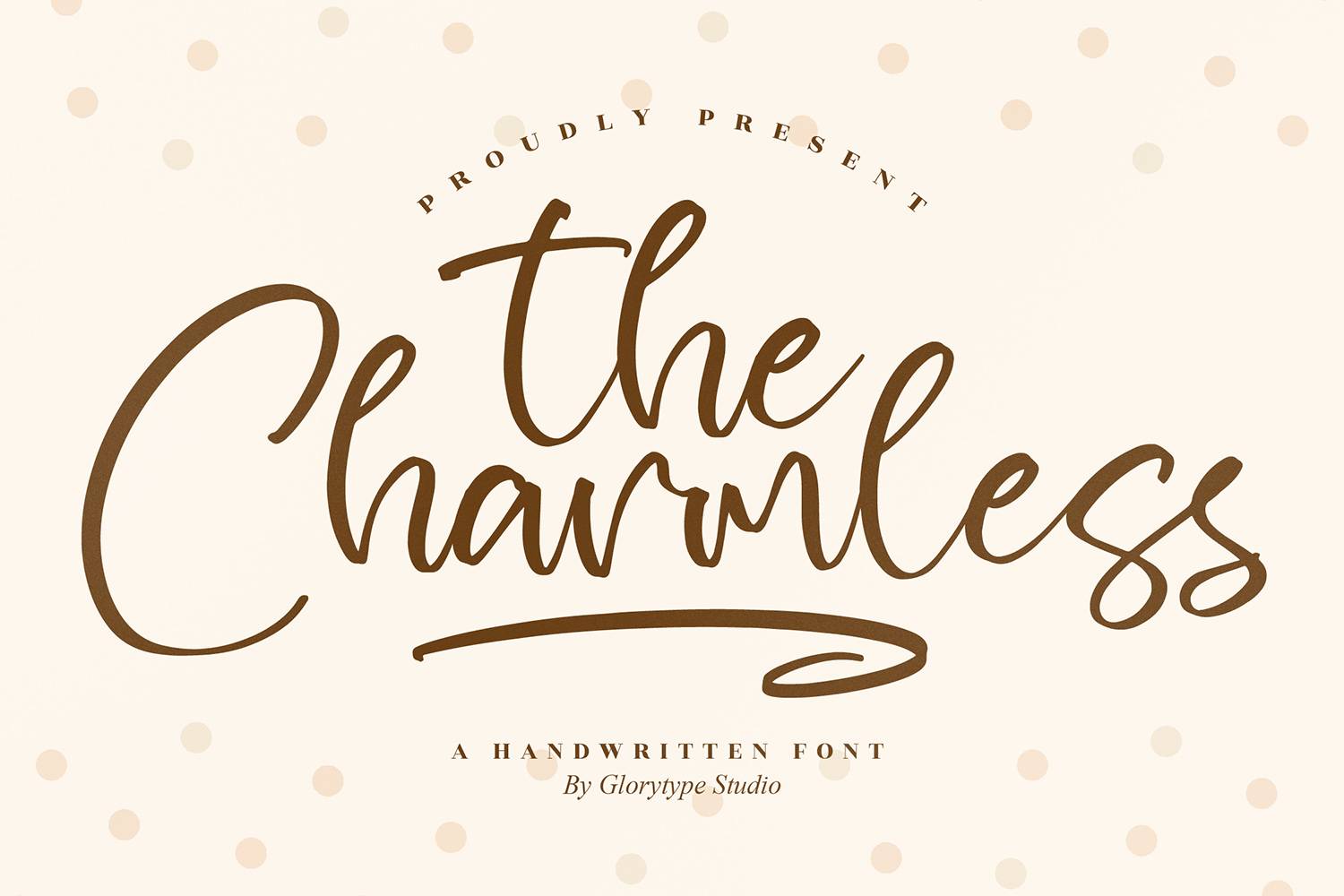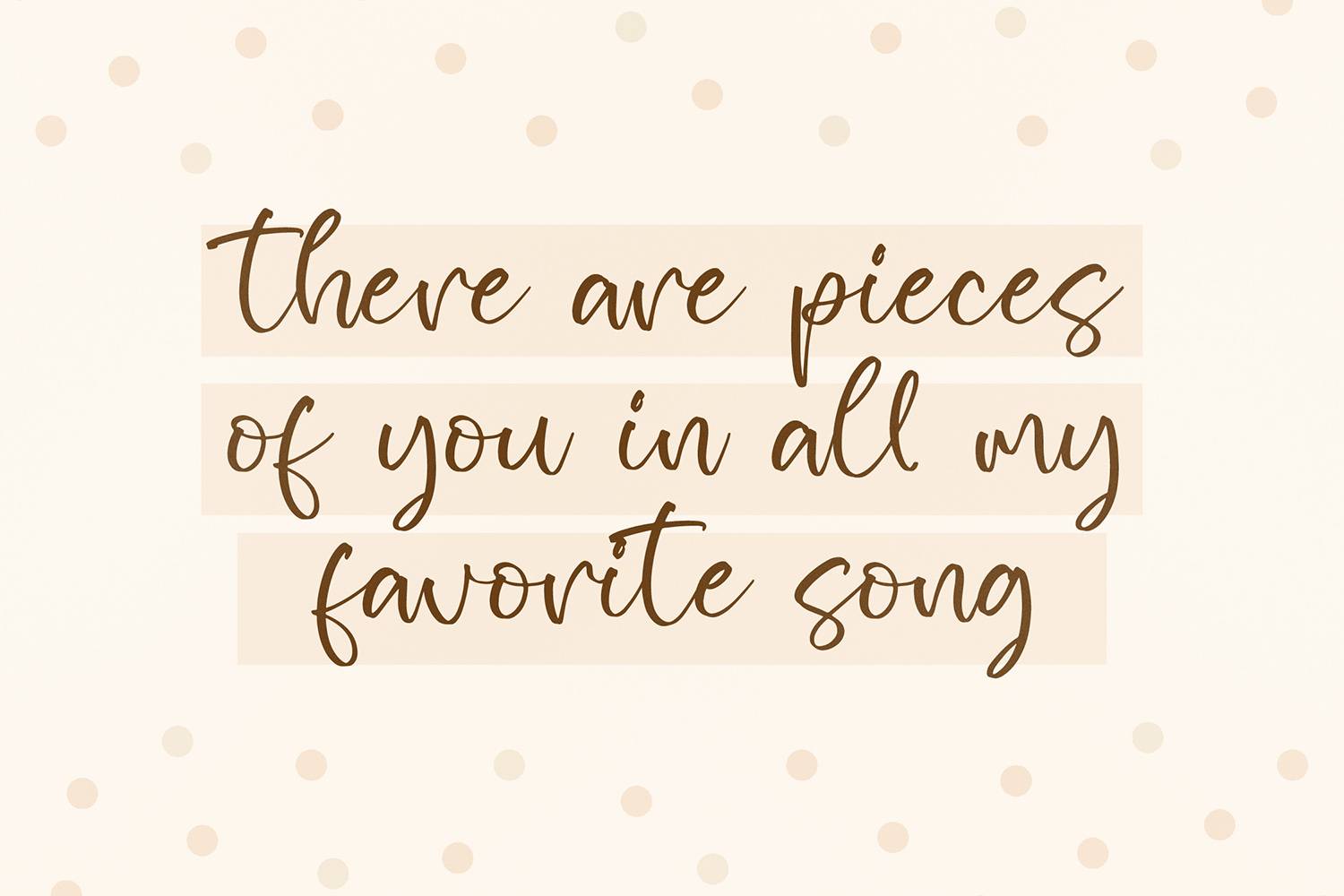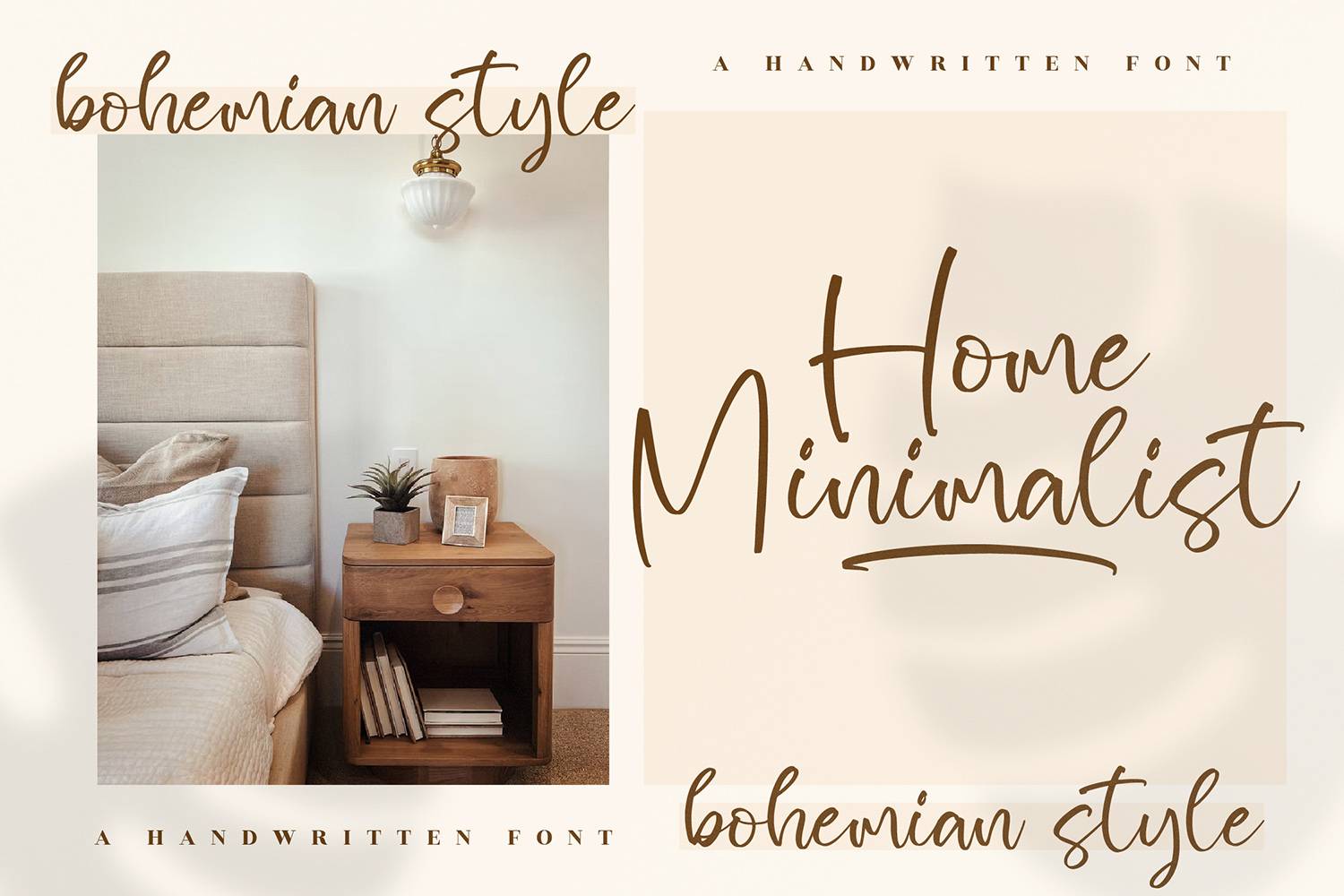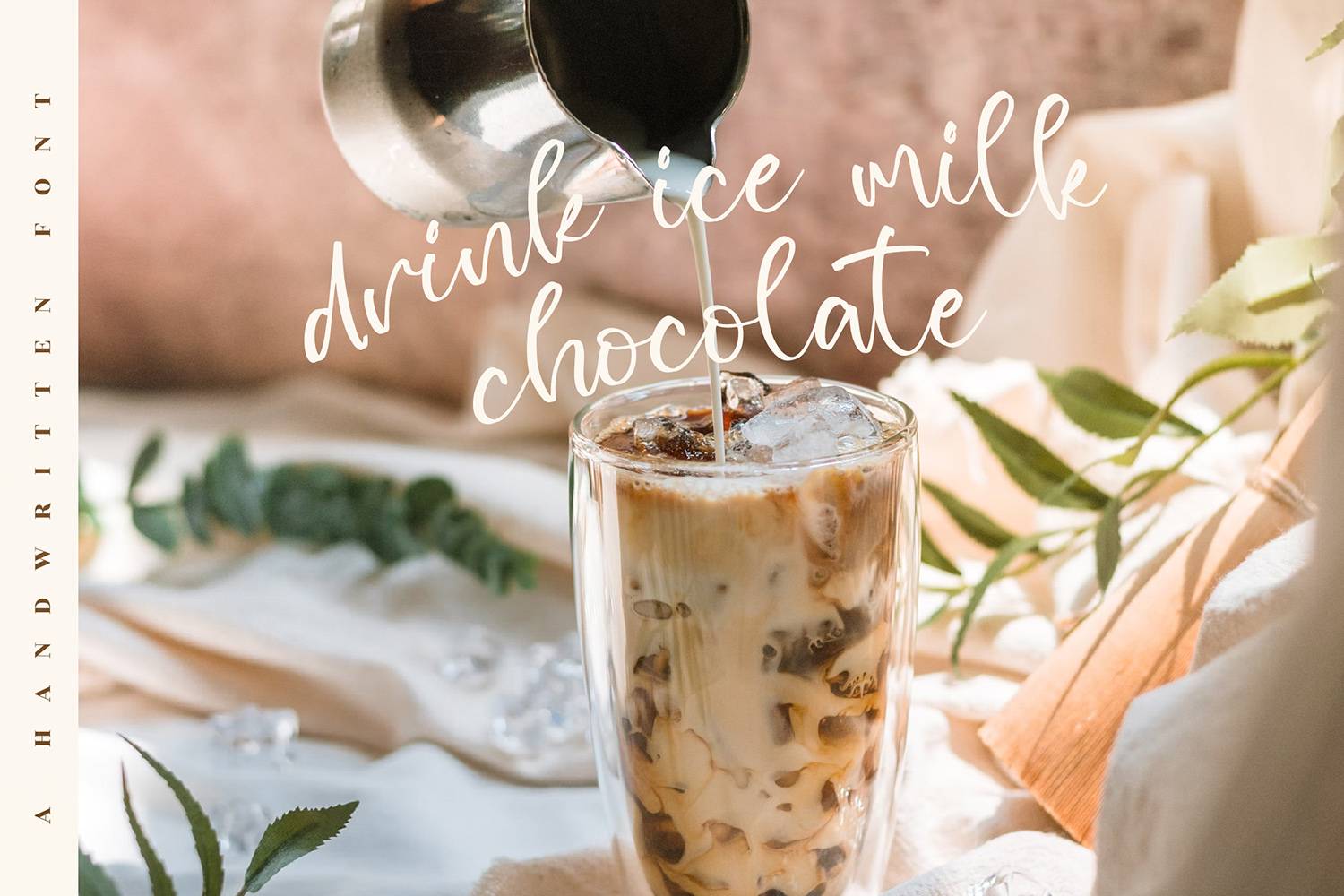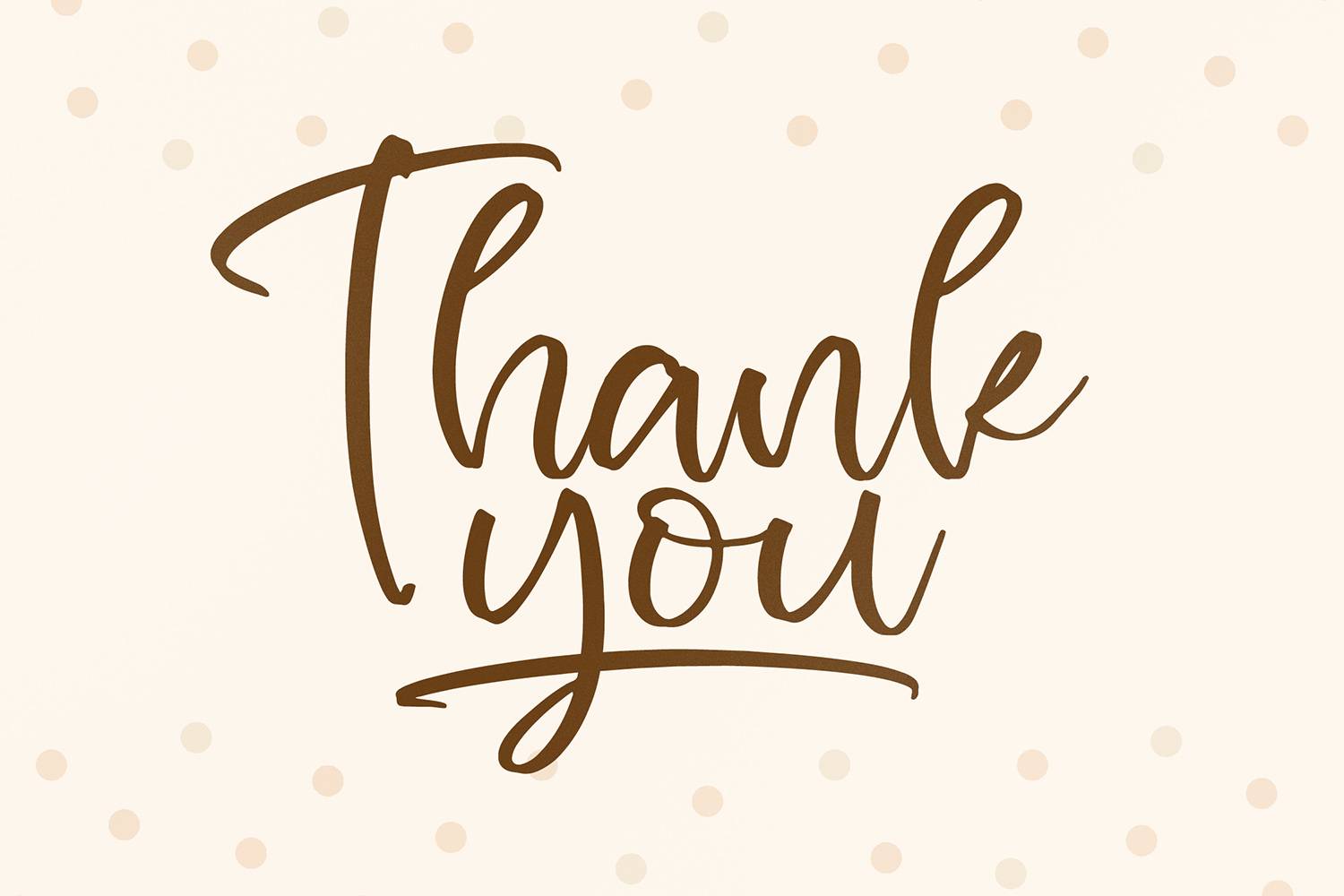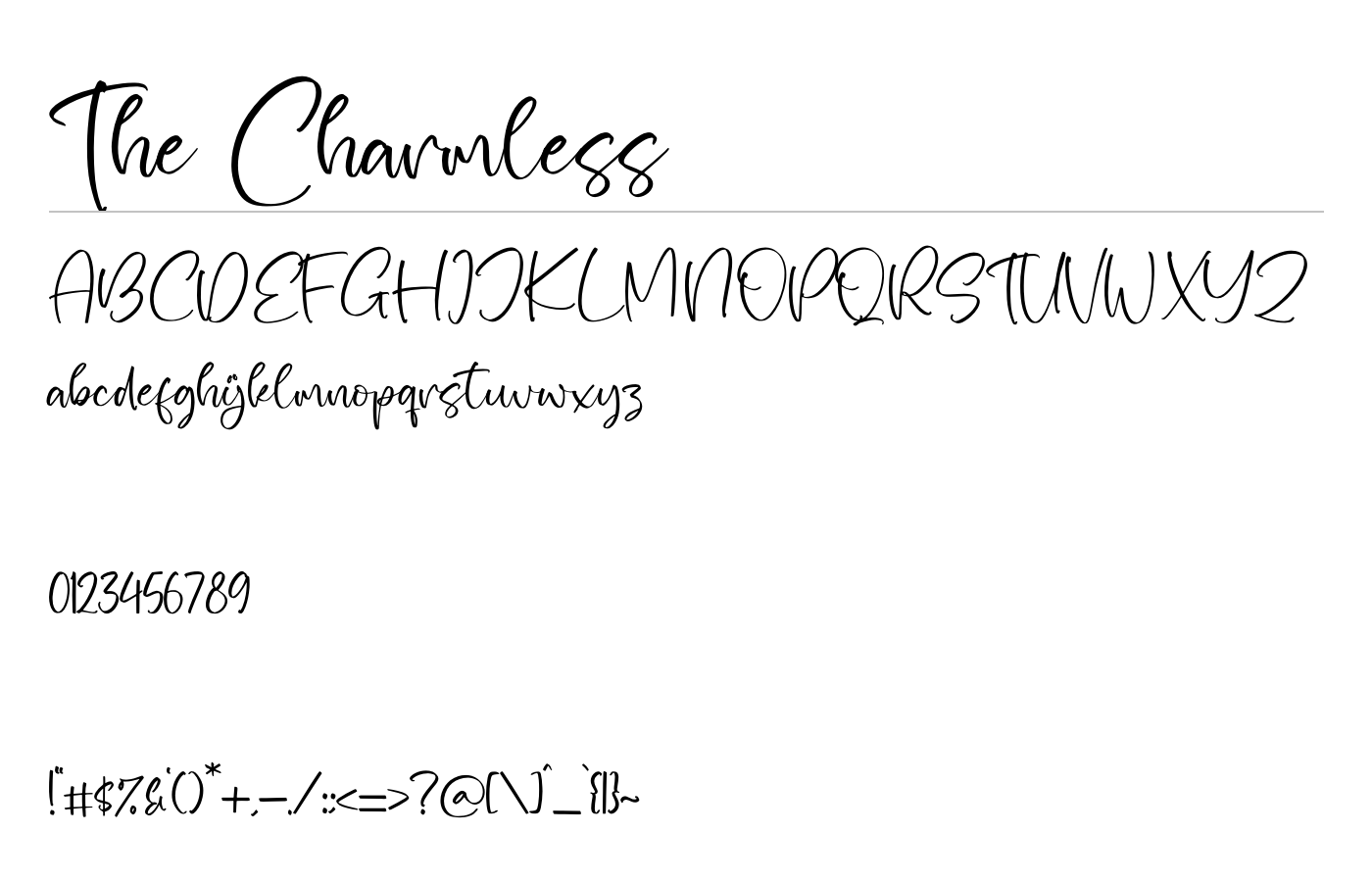
The Charmless Font is a delicate and airy script with a casual, hand-drawn feel characterized by thin strokes and whimsical letterforms. Its elegant yet informal style makes it ideal for creative projects like invitations, branding for artisan products, or social media graphics where a personal touch and gentle charm are desired. This font works best in headlines or decorative text, adding a light, friendly personality without sacrificing readability.
The Charmless Font
About The Charmless Font